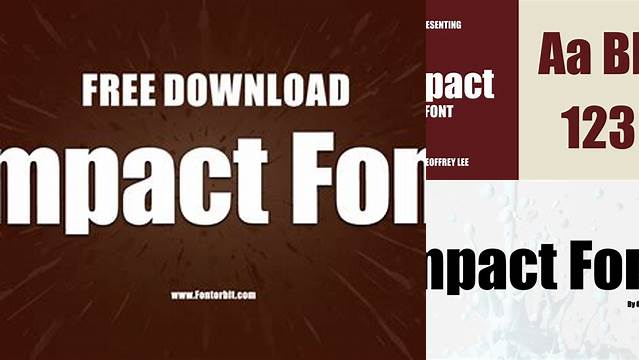
Hey guys, are you looking for a killer font that will make your designs pop? Look no further! This guide is all about the Foundry Icon Impact Regular font – a font that's both stylish and incredibly versatile. And the best part? I'll walk you through how to get it for free. We're talking a complete breakdown of where to download this awesome font, tips on how to use it effectively, and even some cool alternatives if you're feeling adventurous. So, buckle up! Let's dive into the world of the Foundry Icon Impact Regular font and unlock the secrets to using it in your projects. This font is a great choice for anyone wanting to make a bold statement, from graphic designers to web developers. Its impact will surely make your work stand out. Let's begin our journey to finding this gem and implementing it in our designs!
H2: Understanding the Foundry Icon Impact Regular Font
Alright, before we jump into the download part, let's get to know this font better. The Foundry Icon Impact Regular font isn't just any font; it's a statement. It's got this strong, bold presence that immediately grabs your attention. Think of it as the muscle car of fonts – it’s powerful, assertive, and makes a statement without saying a word. The term “Impact” in its name is spot on!
This font is perfect for headlines, logos, posters, and any design where you want to emphasize something. Its thick strokes and distinct look make it easy to read, even from a distance. Imagine a billboard or a website header; the Foundry Icon Impact Regular font would command attention instantly. What makes this font so special is its readability and its ability to fit almost any design style. Whether you’re going for a modern look or a retro vibe, this font has got you covered. Its versatility is one of the key reasons it is so popular. Furthermore, this font is part of the larger Foundry family, which means it shares design characteristics with other fonts. These related fonts are a great resource if you are looking for similar fonts that fit the overall aesthetic of your design. Understanding the font's design and potential will help you incorporate it to your projects better. You'll be able to tailor your usage to optimize its impact.
It's important to know that the “Regular” in its name signifies that this is the standard weight, offering a solid foundation for your text. Keep in mind, this font can make a big difference in the overall look and feel of your project, so it's important to pick a font that fits your overall theme. That's why learning about the Foundry Icon Impact Regular font and knowing where to download it is essential. With its impactful design, you can create materials that draw attention and convey your message effectively. Let's get this font and begin our design journey.
H2: Conclusion: Unleashing the Power of Foundry Icon Impact